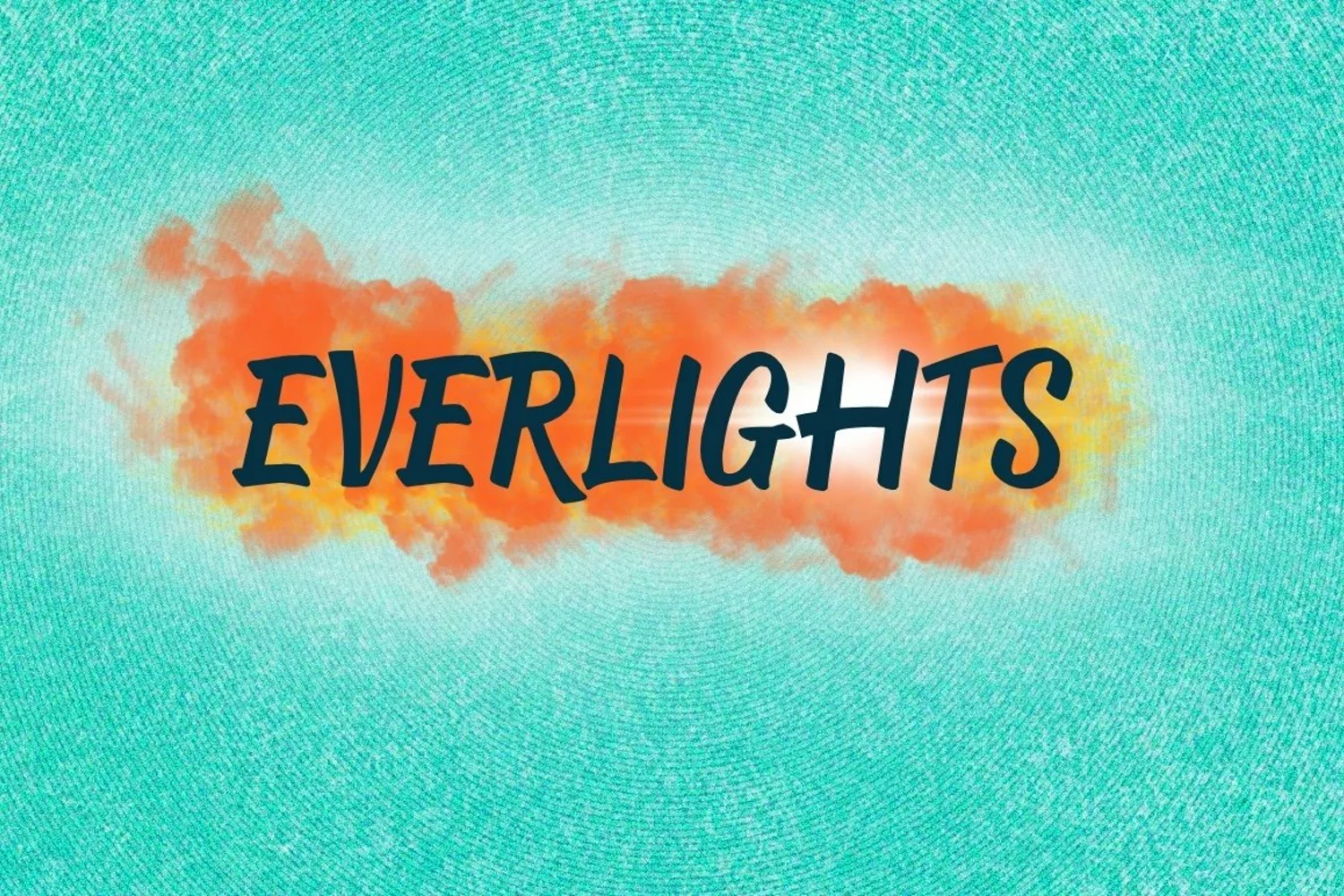
Everlights is a casual handwritten font. This font is great for branding, advertising, logos T shirts and books. And perfect also for package design, quotes and any other creative projects you’re working on.